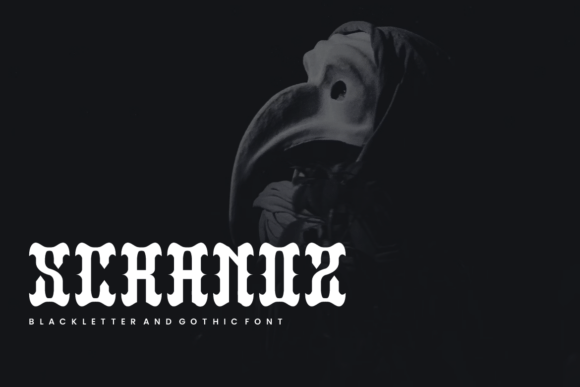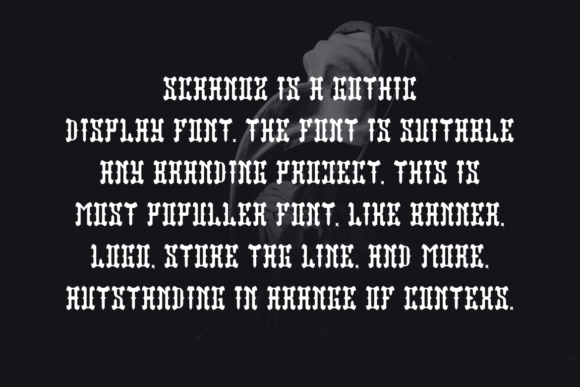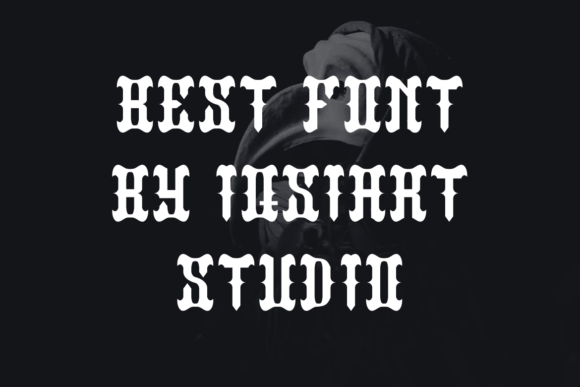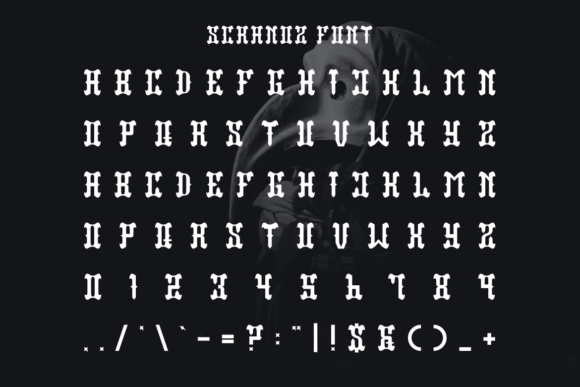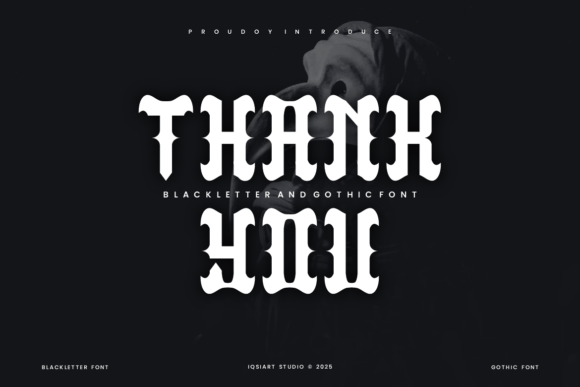
Introduction to Scranoz Font
Scrandz is a bold and dramatic blackletter font that fuses vintage Gothic aesthetics with a sharp modern edge.
Perfect for dark-themed branding, band logos, posters, book covers, or tattoo-inspired designs, Scrandz brings a powerful and mysterious character to your typography With its ornate curves and strong presence, this font is made to stand out and leave a lasting impression.